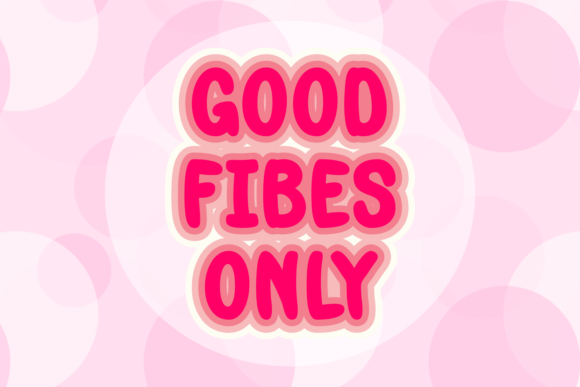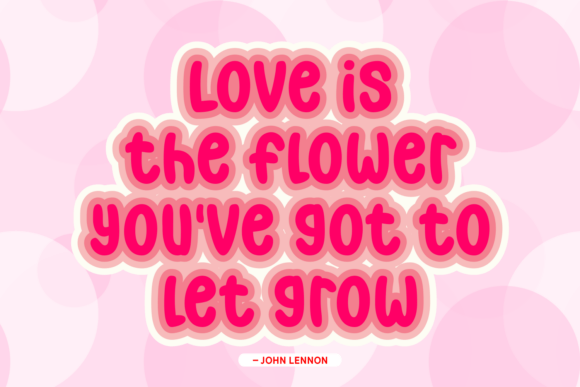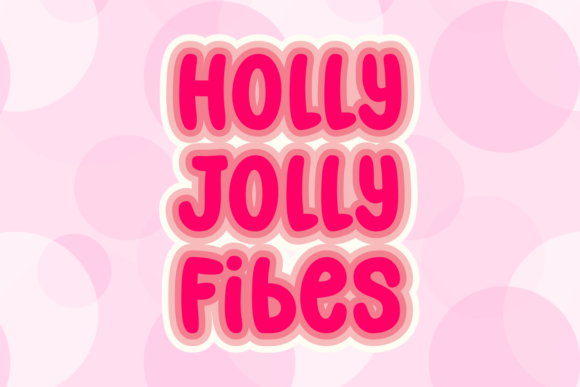
Introduction to Natural Change Font
Experience the dynamism and elegance of the “Natural Change Display Font”.
This delightful, charismatic typeface radiates a playfully captivating charm, seamlessly adding flair to a broad spectrum of projects, from romance to fashion themes Whether you’re creating an exclusive wallpaper, a striking photography blueprint, launching a sublimation project, or designing a trendy social media post – this font injects joy and grace into your creations.
Key Features of Natural Change Font
Why Choose Natural Change Font?
Natural Change Font offers exceptional quality and versatility, making it a valuable addition to your design toolkit. Whether you’re creating for personal projects or commercial use, Natural Change Font delivers professional results.